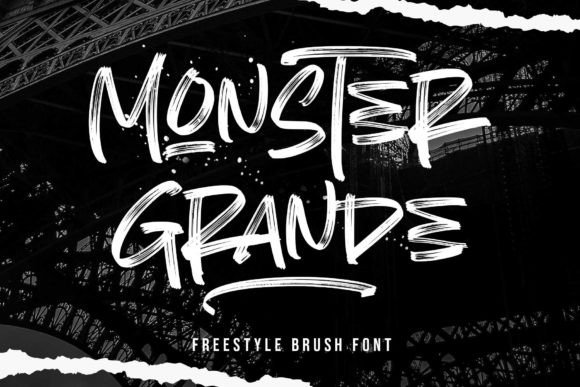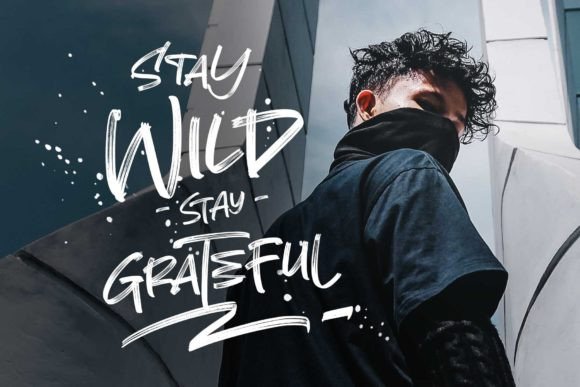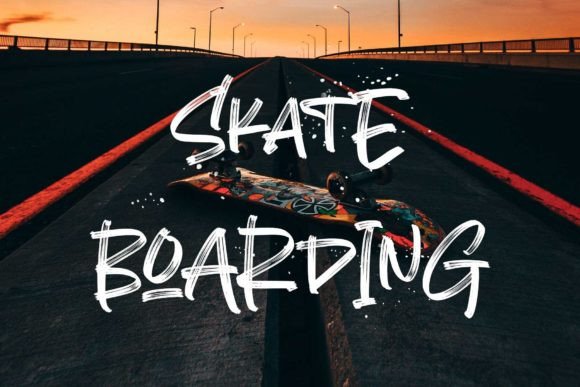
Monster Grande Font
About the Monster Grande Font
Crafted with precision, the Monster Grande Font is ready to bring your ideas to life. Explore the Monster Grande font – an assertive, hand-drawn typeface with an impressive texture. Combining urban style and a dry marker effect, this all-caps font imparts an energetic and trendy look.
Monster Grande features a unique design suitable for various themes such as sport, urban, pop, underground, futuristic, or contemporary styles. Equipped with stylistic alternates and numerous ligatures, Monster Grande enhances your design, providing a realistic handwritten feel.
Monster Grande excels in headlines, short impactful phrases, and logos where its bold texture and assertive style make a strong statement. It’s ideal for branding projects targeting a younger demographic, posters promoting events with an urban or edgy vibe, and packaging designs for products emphasizing street style or a rebellious spirit. Avoid using it for body text or lengthy paragraphs; its hand-drawn nature and all-caps format make it less legible for extended reading.
Pairing Monster Grande with a clean sans-serif like Futura or a geometric sans-serif like Bebas Neue creates a striking contrast, balancing its rough texture with sharp, modern forms. For a more vintage feel, consider pairing it with a slightly distressed serif like Playfair Display. The font’s core personality is bold, energetic, and trendy, conveying a sense of urban rebellion and youthful dynamism.
Monster Grande Font Usage Examples
Monster Grande Font Example